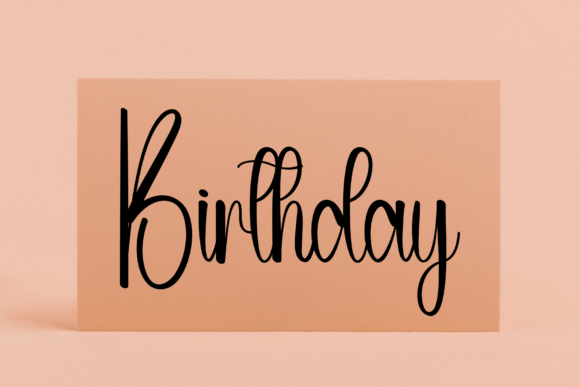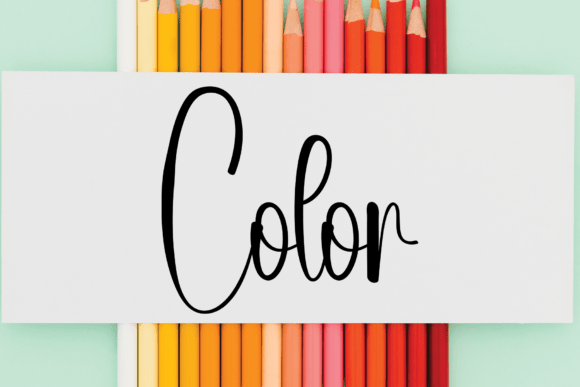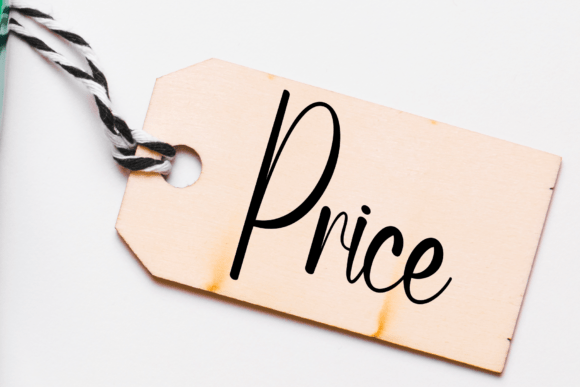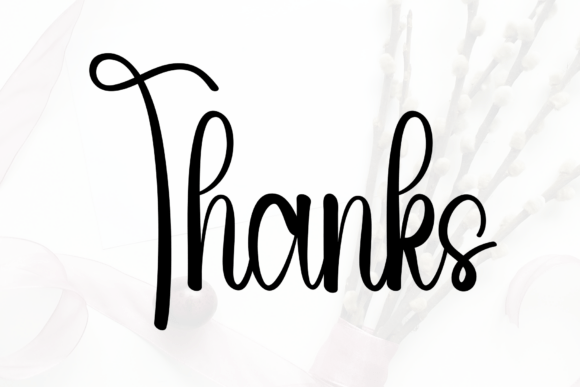
Introduction to Flower Angel Font
There’s something magical about creating a design that brings a smile to someone’s face. It’s that moment when you pour your heart and soul into a project, and it comes together in a way that’s both beautiful and meaningful. For designers, that moment is often the result of finding the perfect font to match their vision.
That’s where the Flower Angel Font comes in – a sweet and beautiful handwritten font that adds a cozy accent to any design project. Its unique, dancing characters along the baseline make it a standout choice for designers looking to add a touch of whimsy to their work.
Key Features of Flower Angel Font
- High-quality, intricate design featuring floral patterns and angelic elements, making it ideal for creative projects.
- Transparent background, allowing for easy customization and flexibility in design applications.
- Perfect for designers looking for a unique and elegant font to add a touch of sophistication to their designs.
- Can be used for a variety of creative projects, including wedding invitations, greeting cards, and other design resources.
Honest Review: Flower Angel Font
As a designer, I’m always on the lookout for high-quality design resources to elevate my creative projects. Recently, I had the chance to try out the Flower Angel Font, and I must say it’s been a delightful addition to my toolkit.
One of the things that stood out to me about this font is its beautiful, hand-drawn style. The characters are intricate and detailed, making it perfect for any project that needs a touch of whimsy and charm. The transparent background option is also a huge plus, allowing me to easily layer it over other design elements.
- Beautiful, hand-drawn style
- High-quality characters
- Only a limited number of characters are included (⚠️)
- Not suitable for projects that require a large font size
Overall, I’m really impressed with the Flower Angel Font. It’s a great resource for any designer looking to add a touch of elegance and sophistication to their projects. While it may have some limitations, the quality and unique style make it well worth the download.
The Flower Angel Font is a high-quality, free design resource ideal for creative projects that require a touch of elegance and whimsy. Its transparent background and intricate details make it a versatile tool for designers and artists.
Tips for Getting the Most Out of Flower Angel Font
For the best results, use the Flower Angel Font on a high-quality background or image. Experiment with different font sizes and colors to create a unique and eye-catching design.
The Flower Angel Font is ideal for creative projects such as wedding invitations, greeting cards, and party decorations. Its intricate details and transparent background make it a versatile tool for designers and artists.